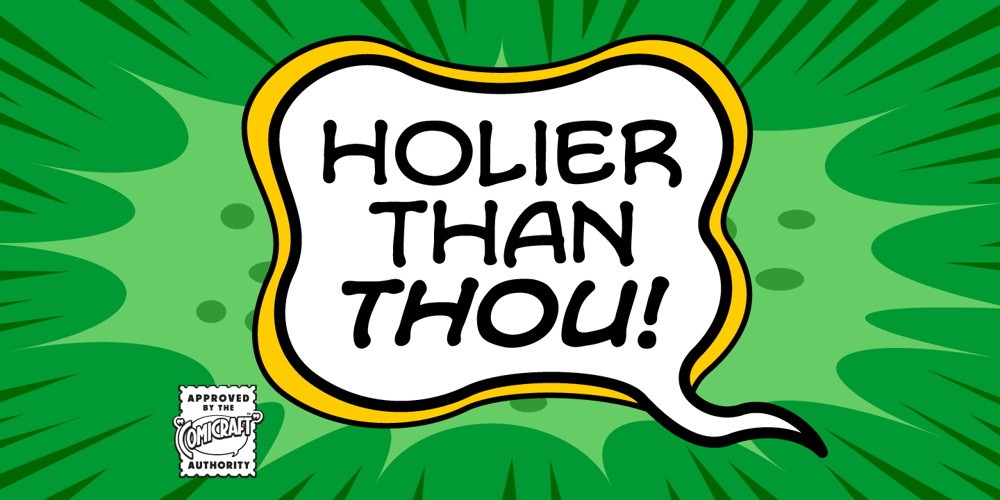
Holier Than Thou Font Family was designed by John Roshell and published by Comicraft. Holier Than Thou contains 2 styles and family package options. Look well, Fontlovers, we wouldst have words with thee! By Odin’s beard, let the naysayers beware, for ’tis true, Thor doth speak — and shouldst speak — Mighty Words! Yay there shall be a “Thee” and a “Thou” and a “Thy” and a “Smite!” Verily, ’tis understood that Elizabethan English dost suit the Gods of Asgard, mortals can never get enow.